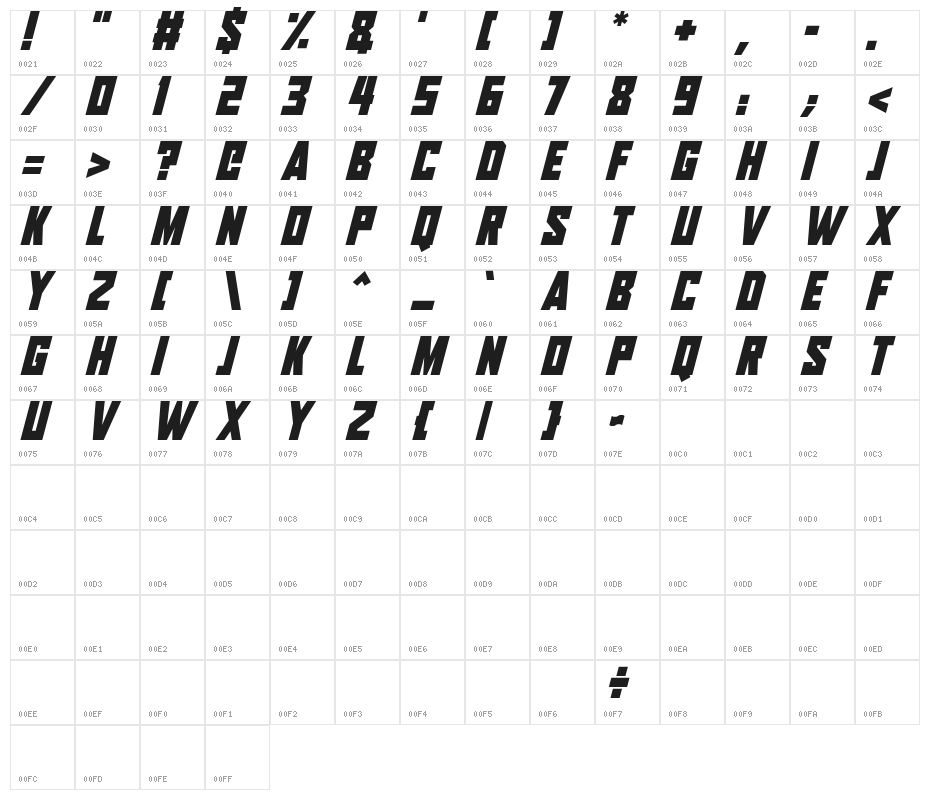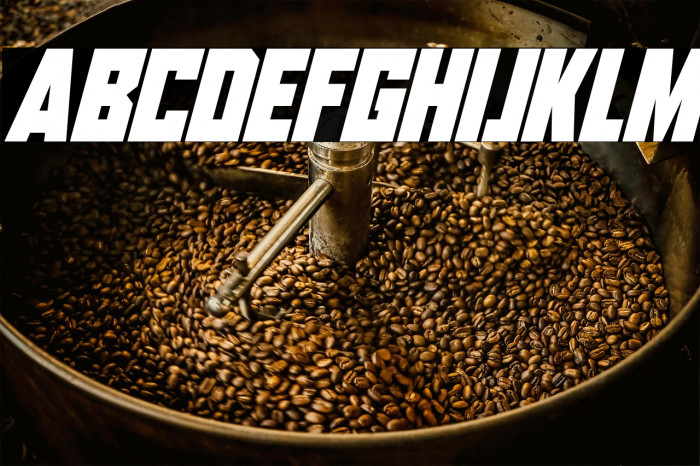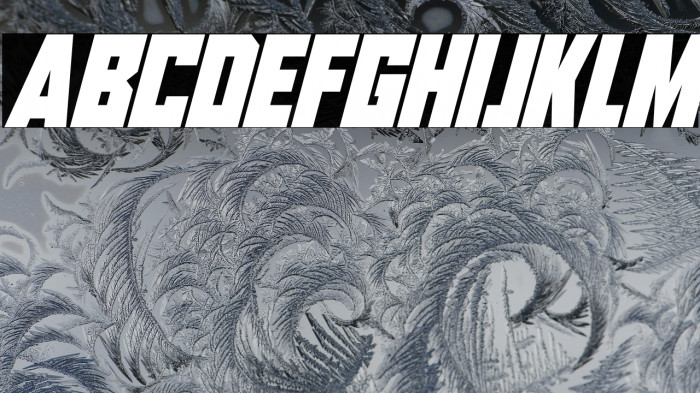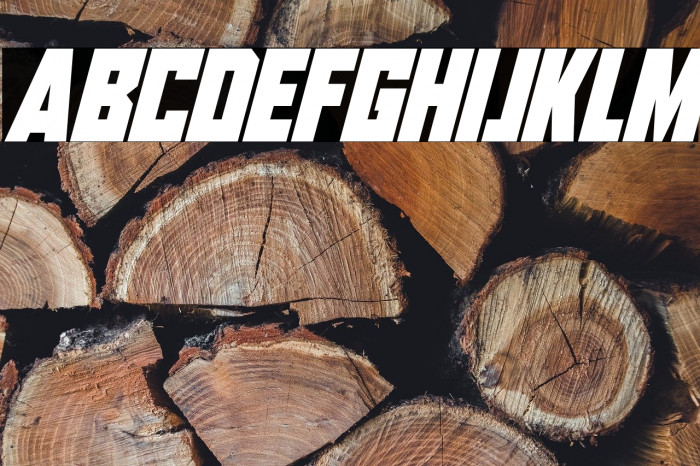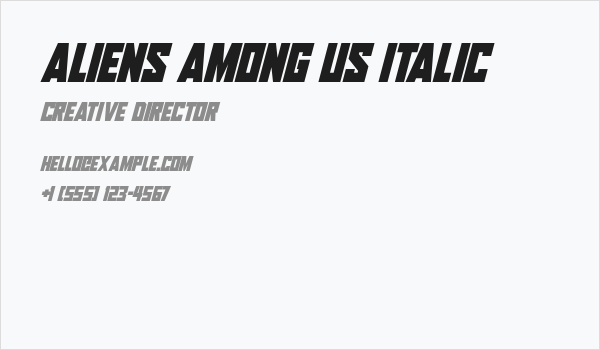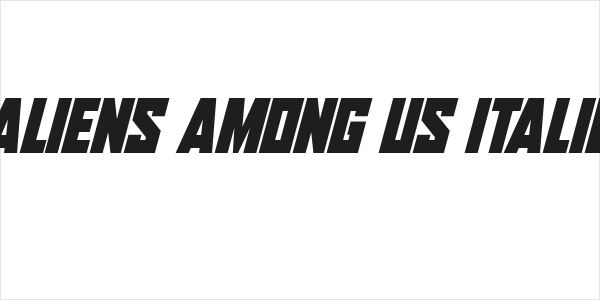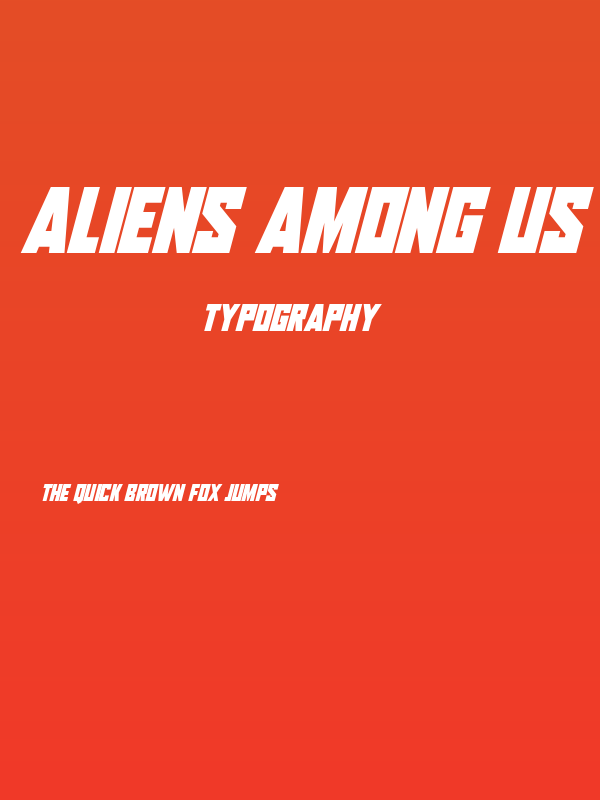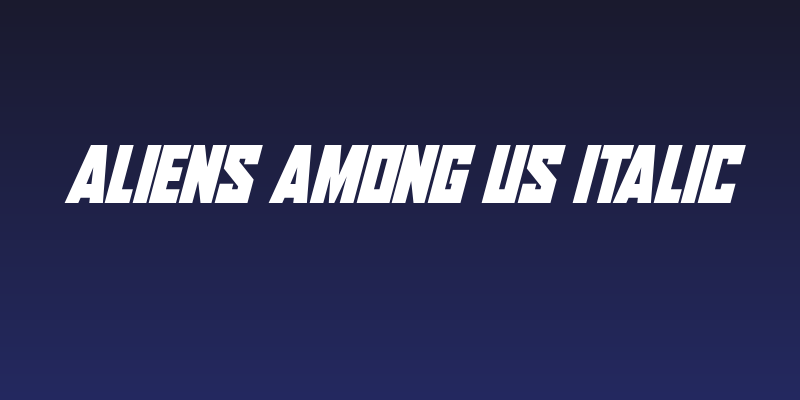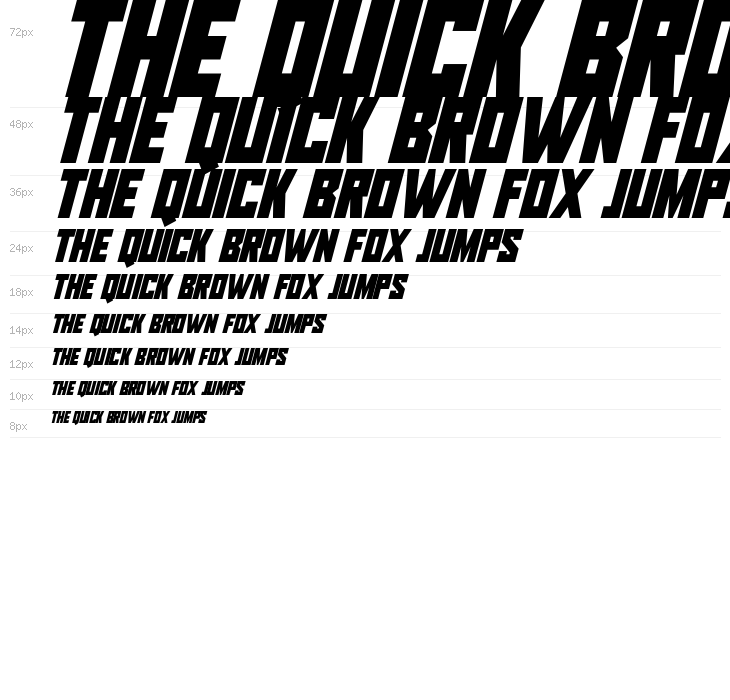
Aliens Among Us Italic Font
Aliens Among Us Italic Description
This font features a bold and angular design with a futuristic flair. The characters are sharply defined, with a distinct geometric style that gives it a modern and edgy appearance. The uppercase letters are particularly striking, with a consistent slant that adds dynamism and movement. The numbers and special characters maintain the same boldness and angularity, ensuring a cohesive look across all elements. This font is perfect for projects that require a strong, impactful visual presence.
| Proposed Projects | Ideal for sci-fi themed designs, video game titles, movie posters, and branding that requires a modern and bold statement. |